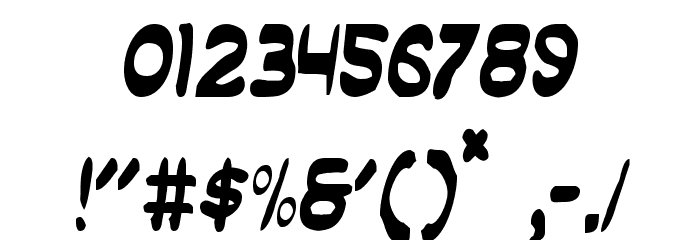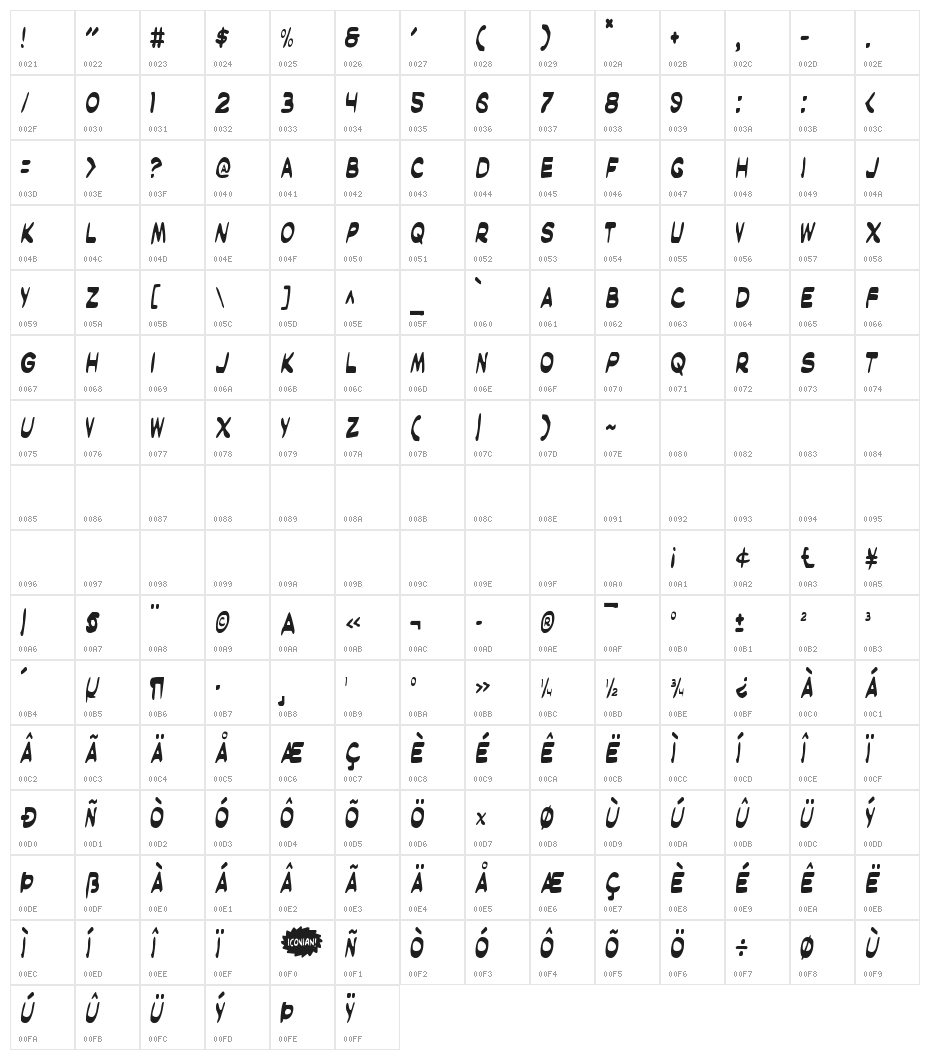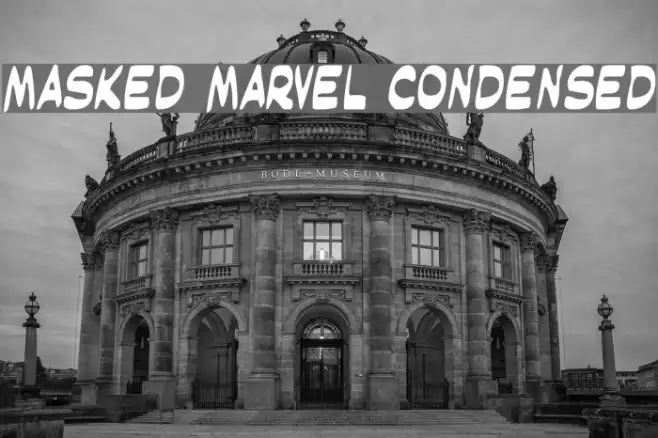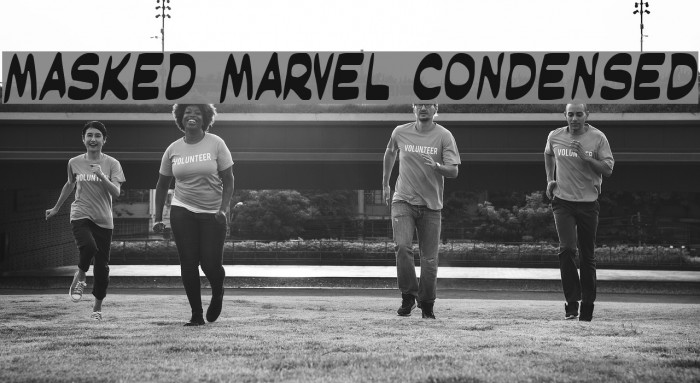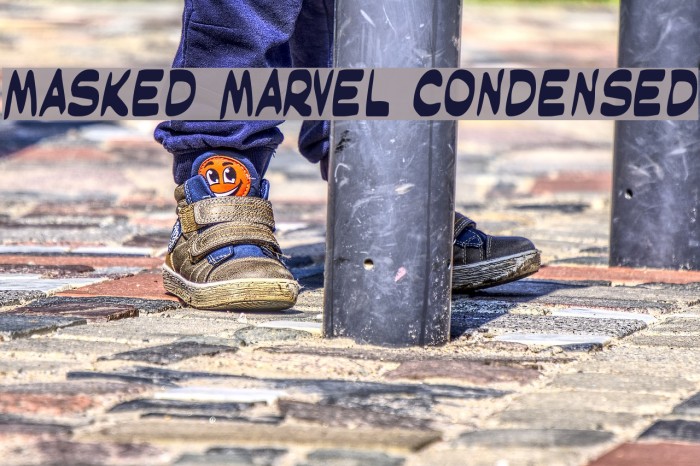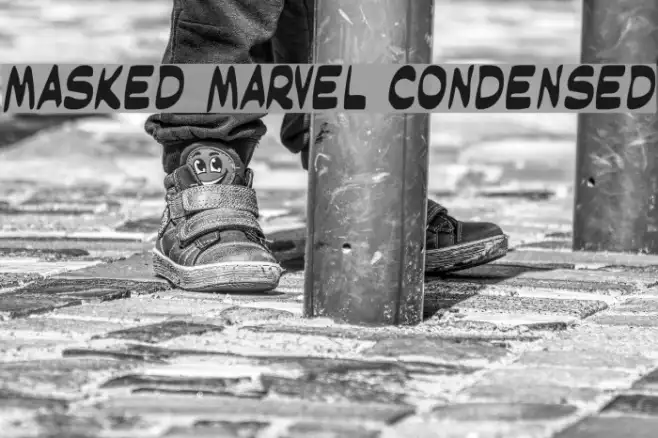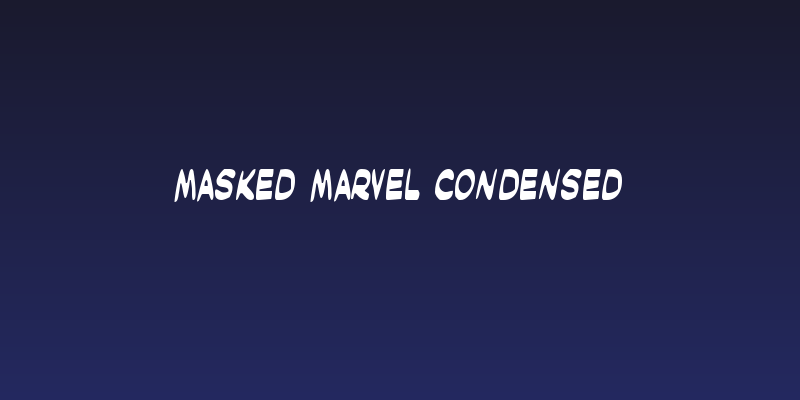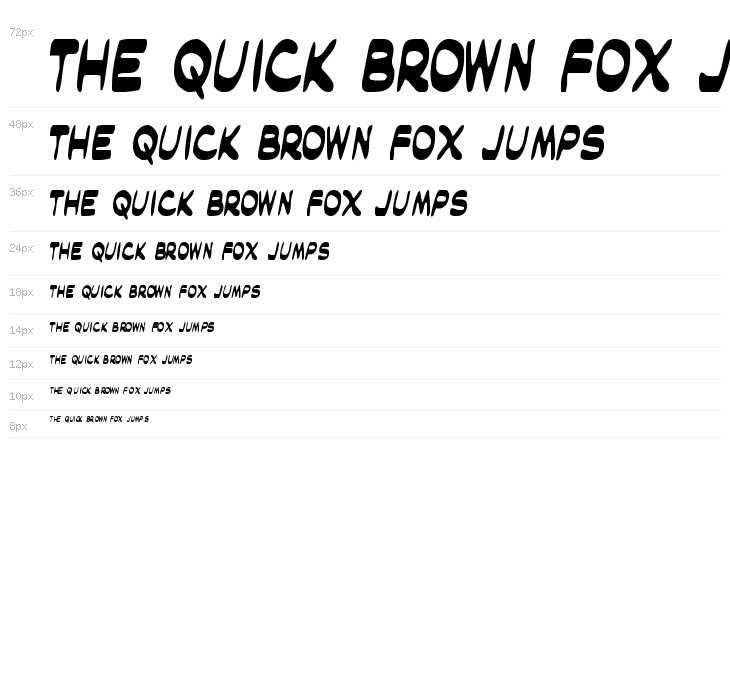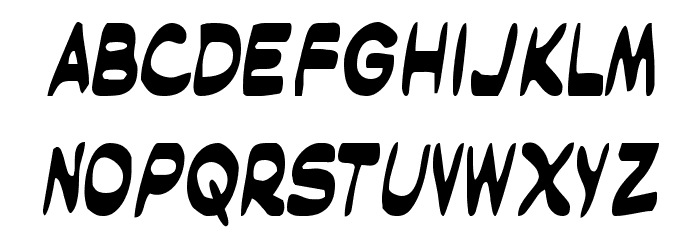
Masked Marvel Condensed Font
Masked Marvel Condensed Description
This font features a bold and dynamic style with a condensed form, giving it a strong and impactful presence. The characters are slightly slanted, adding a sense of motion and energy. The strokes are thick and consistent, providing a uniform appearance across all letters and numbers. The rounded edges soften the overall look, making it approachable yet assertive. This font is ideal for creating attention-grabbing headlines or titles, where a bold statement is necessary. The special characters maintain the same boldness and style, ensuring consistency throughout any text.